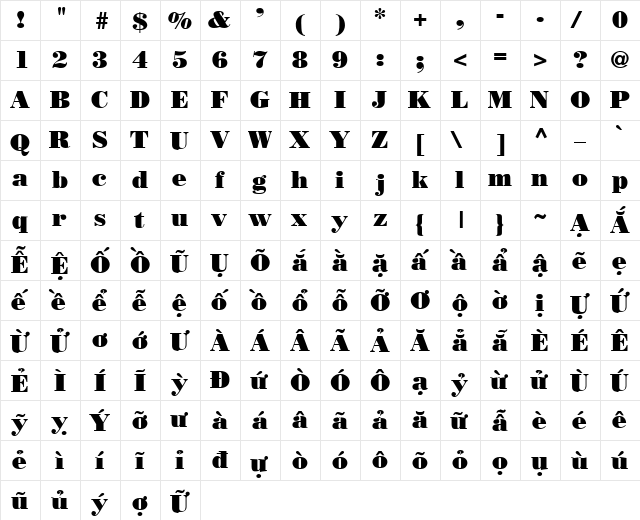
VI Le Chi Normal Font Preview
VI Le Chi Normal
Design Context for VI Le Chi Typeface
VI Le Chi is a composed and adaptable typeface that performs quietly and consistently across a wide range of design contexts.